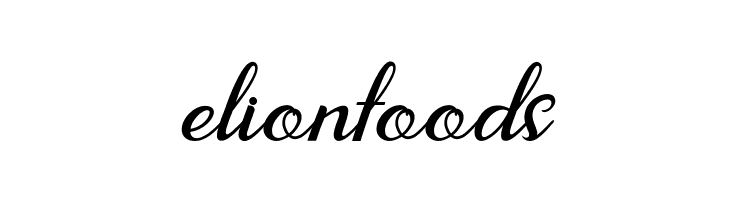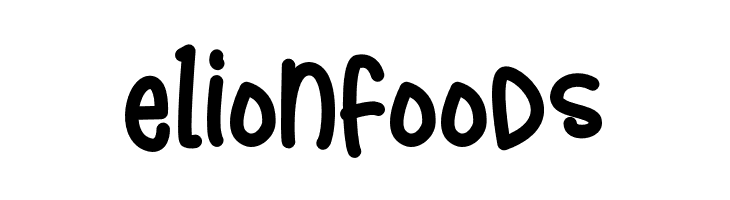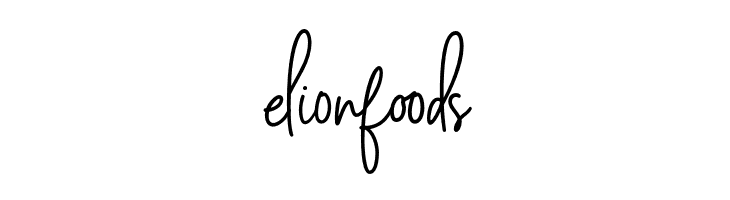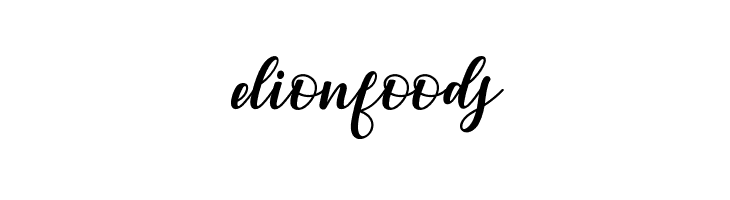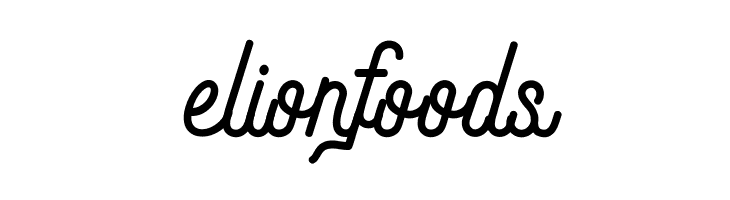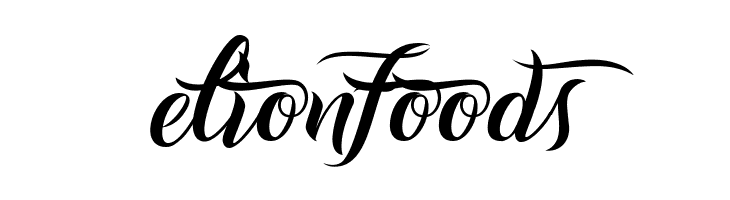
A classic, ornate font with Gothic influences and intricate detailing.
A cursive, handwritten-style font with elegant, flowing strokes.
A flowing, elegant handwritten font with elongated, smooth strokes.
A playful, handwritten cursive font with elongated, fluid strokes.
A playful, handwritten font with bold, rounded characters and a casual style.
An elegant and flowing script font with intricate, decorative letterforms.
An elegant script font with graceful curves and decorative swashes.
A flowing, elegant script font with interconnected letters and a modern twist.
A flowing script font with elegant loops and a sophisticated style.
An elegant script font with flowing, cursive letterforms and sophisticated style.